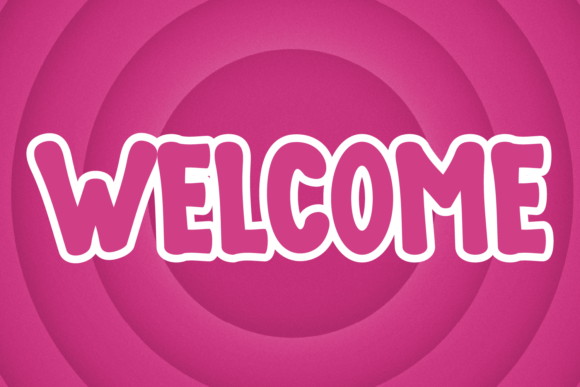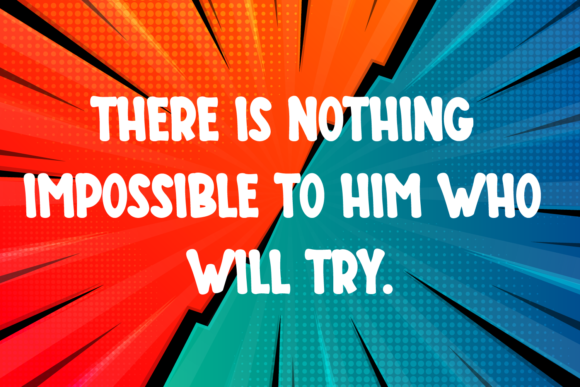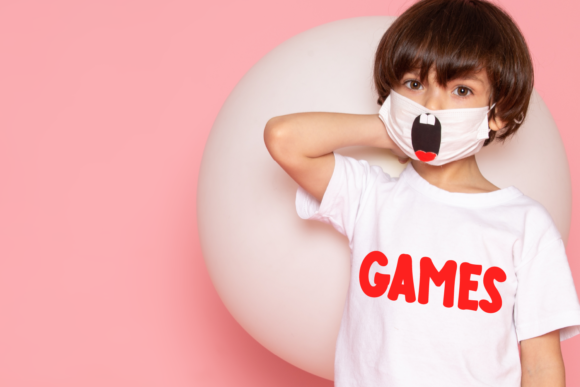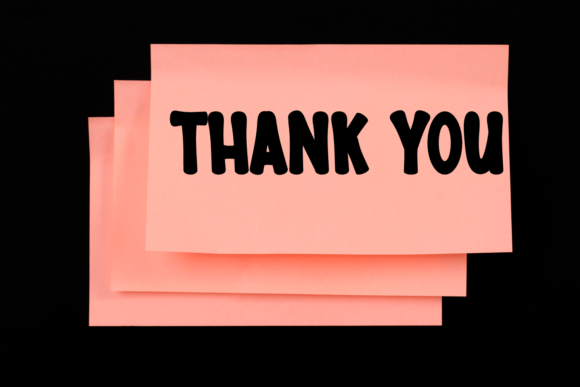
Introducing Comic Time Font: The Perfect Choice for Playful Designs
Are you a designer or crafter looking for a font that embodies playfulness and authenticity? Look no further than Comic Time Font! This friendly display font is specifically designed to bring a sense of fun and excitement to any children’s activity or elementary school design.
What is Comic Time Font?
Comic Time Font is a carefully crafted display font that is perfect for creating engaging and interactive designs for kids. Its playful and authentic feel makes it an ideal choice for children’s books, educational materials, posters, and more.
Key Features of Comic Time Font
- Playful and Authentic: Comic Time Font is designed to evoke a sense of playfulness and authenticity, making it perfect for designs that require a friendly and approachable tone.
- Display Font: This font is specifically designed as a display font, making it perfect for headlines, titles, and other prominent text elements.
- Kid-Friendly: Comic Time Font is perfect for designs aimed at children, including children’s books, activity sheets, and educational materials.
- Elementary School Designs: This font is also suitable for elementary school designs, including posters, flyers, and other promotional materials.
Why Choose Comic Time Font?
There are many fonts available that claim to be playful and fun, but Comic Time Font stands out from the rest. Here are just a few reasons why:
- Unique and Exclusive: Comic Time Font is a unique and exclusive font that will help your designs stand out from the crowd.
- Easily Readable: Despite its playful feel, Comic Time Font is easily readable, even at smaller sizes.
- Highly Versatile: This font can be used for a wide range of designs, from digital projects to print materials.
How to Use Comic Time Font
Using Comic Time Font is easy! Here are a few tips to get you started:
- Pair with Other Fonts: Comic Time Font pairs well with other fonts, including sans-serif and serif fonts.
- Experiment with Colors: The playful feel of Comic Time Font lends itself well to bright and bold colors.
- Use for Headlines and Titles: This font is perfect for headlines and titles, but can also be used for body text in smaller sizes.
Design Ideas Using Comic Time Font
- Children’s Book Covers: Use Comic Time Font to create eye-catching book covers for children’s books.
- Activity Sheets: Create engaging activity sheets for kids using Comic Time Font.
- Elementary School Posters: Use this font to create colorful and informative posters for elementary school classrooms.
- Digital Projects: Comic Time Font is perfect for digital projects, including videos, animations, and interactive presentations.
In conclusion, Comic Time Font is a friendly display font that embodies playfulness and authenticity. Its unique and exclusive design makes it perfect for children’s activities, elementary school designs, and other playful projects. With its highly versatile and easily readable design, Comic Time Font is sure to become a favorite among designers and crafters.